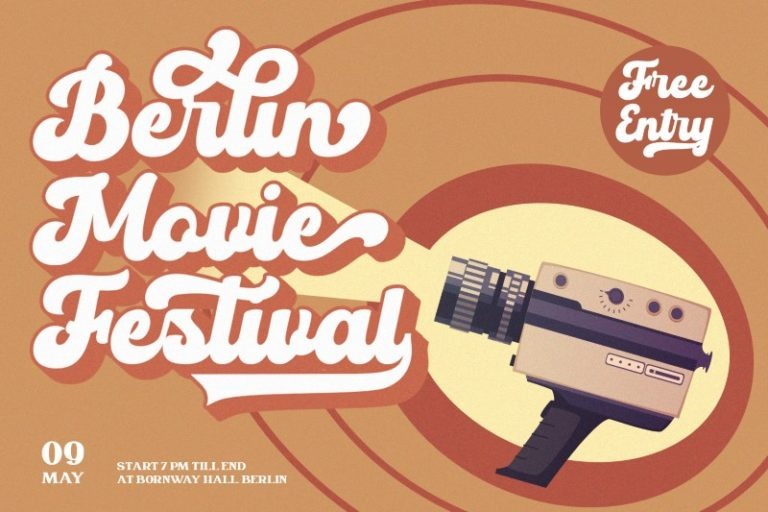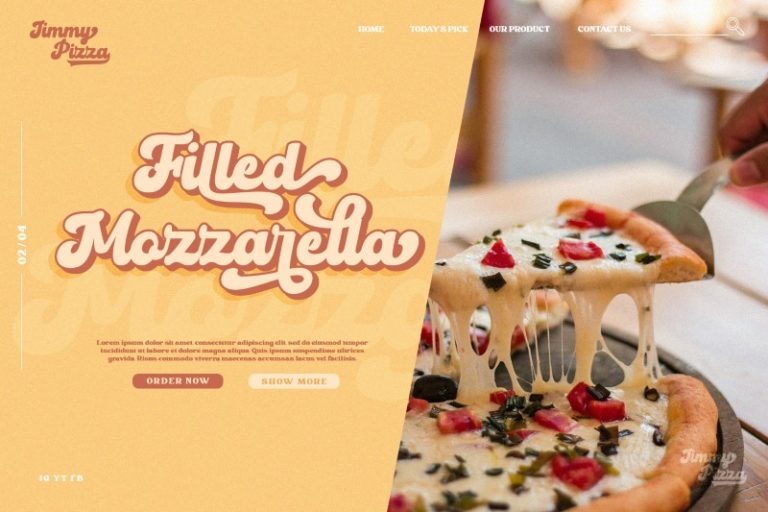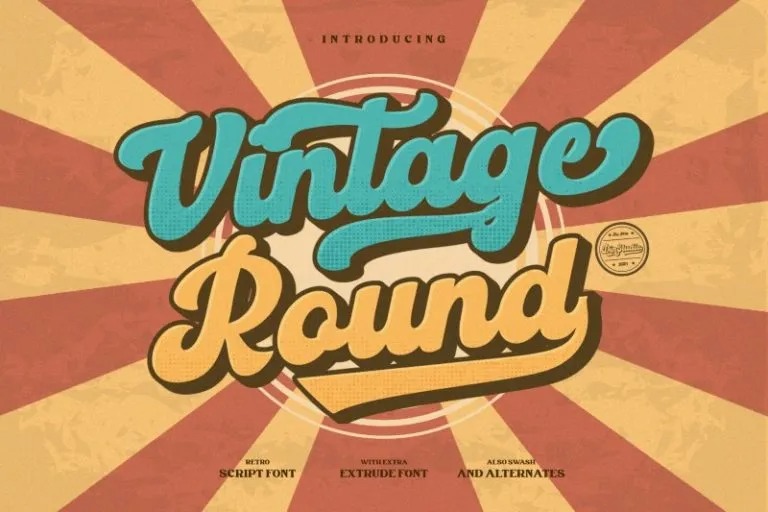
Vintage Round Script Font
It’s a captive font designed with strong outlines and fat strokes to bring your branding to life and add a touch of modernity, fun, and style. This font becomes more special with extruding version option. Vintage Round can be used for a host of different content needs and projects. Create gorgeous printed quotes, standout packaging, or beautiful t-shirts! You can even use it to create amazing headings, logos, menus, and social media graphics.